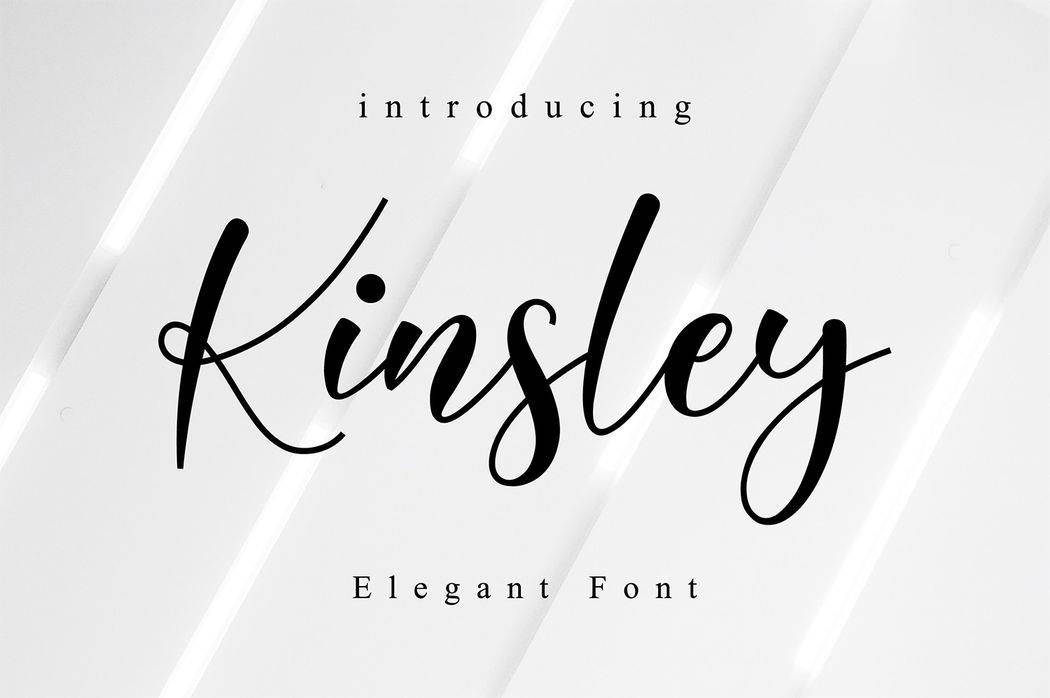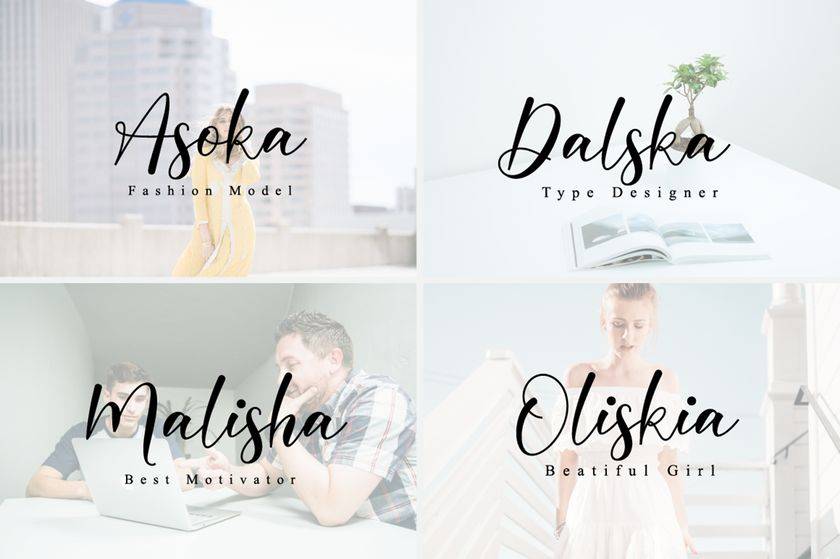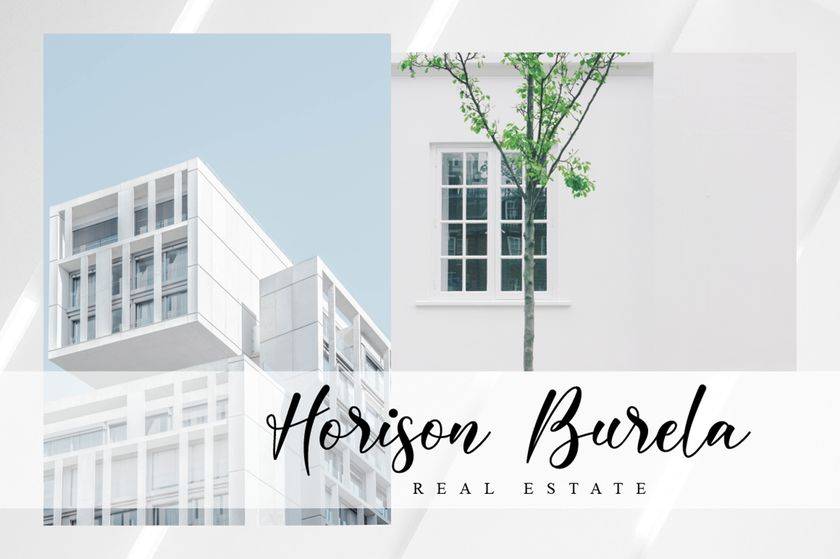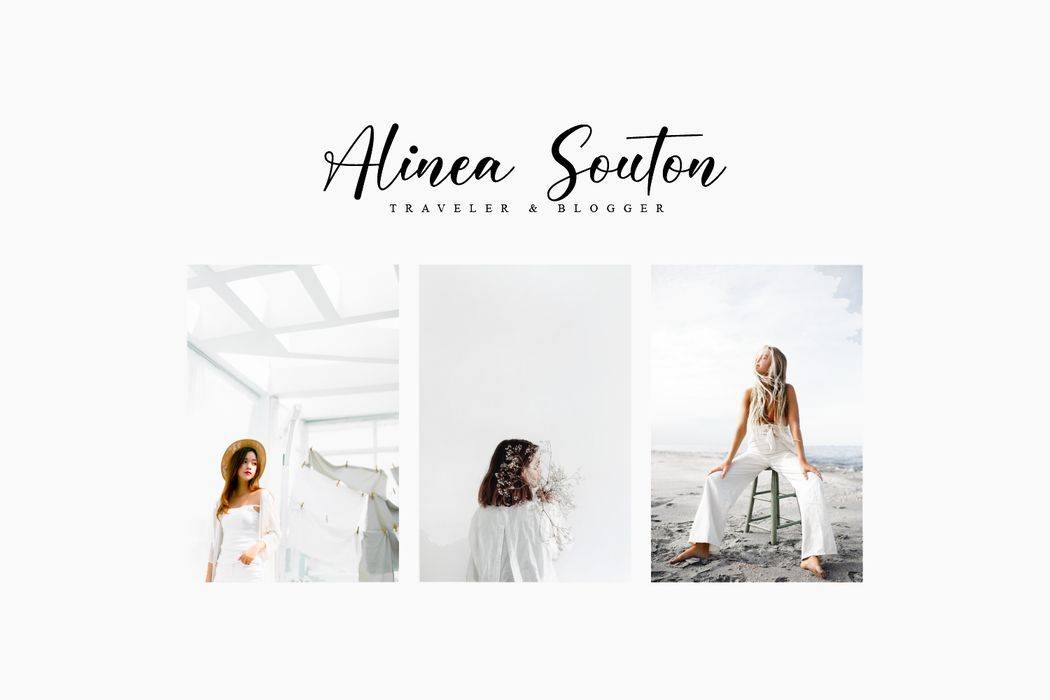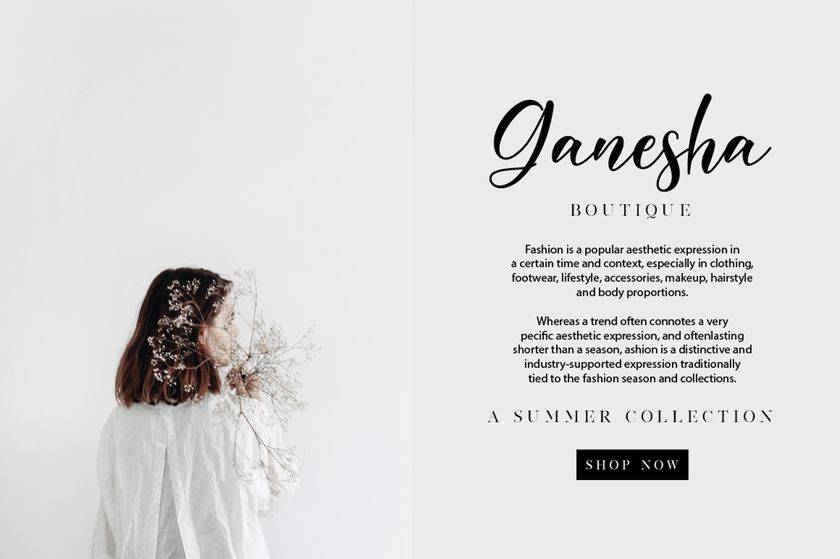
Kinsley Elegant Font is a graceful script typeface characterized by its smooth, flowing strokes and refined calligraphic style. It features a fluid, handwritten feel with delicate contrasts between thick and thin lines, making it perfect for sophisticated branding, invitations, and elegant headlines where a touch of charm and personality is desired. This font’s stylish letterforms and natural rhythm add a luxurious yet approachable vibe to any design.
Kinsley Elegant Font
About Kinsley Elegant Font
| Font family | Kinsley Elegant Font |
| Designer | Nissa Nana |